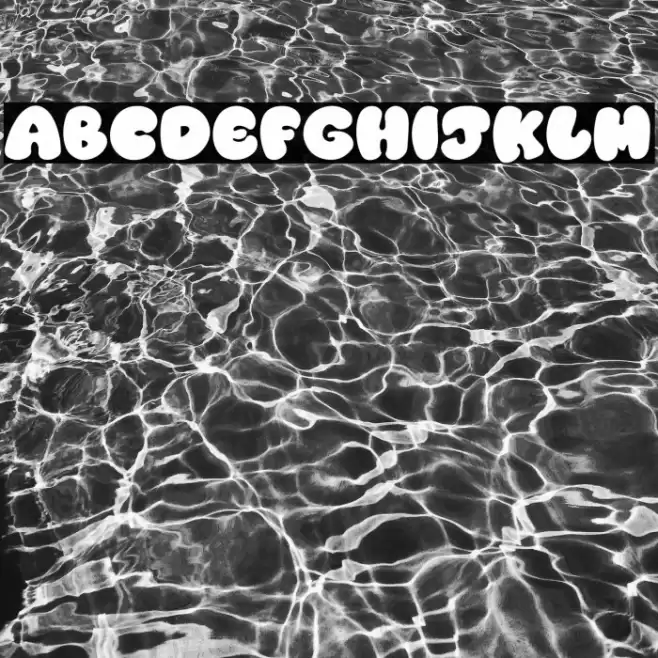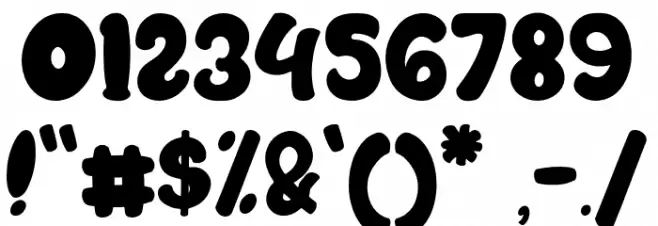
Cookieschip Font
Cookieschip Description
This playful and bold font features rounded, bubbly characters that exude a sense of fun and whimsy. The letters are thick and have a soft, pillowy appearance, reminiscent of playful childhood designs or cartoonish styles. The font maintains a consistent weight throughout, with no sharp edges or angles, contributing to its friendly and approachable feel. The characters are closely spaced, enhancing the compact and cohesive look. This style is ideal for projects that aim to convey a lighthearted or informal tone, such as children's books, playful branding, or party invitations.
A bold, bubbly font with rounded characters and a playful style from Cartoon fonts.
- Proposed Projects: Ideal for children's books, playful branding, party invitations, and cartoon designs.
- Character Spacing: Tight
- Overall Style: Playful